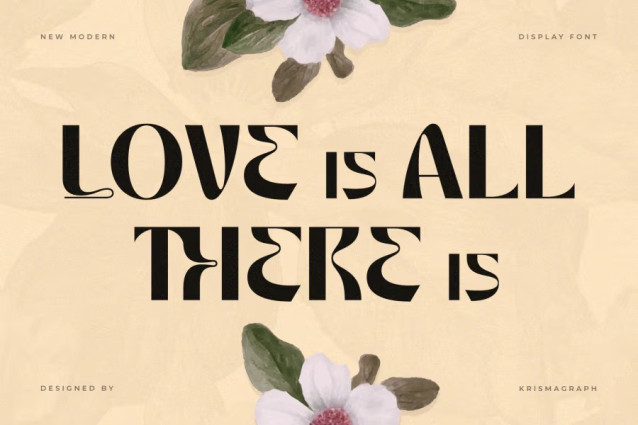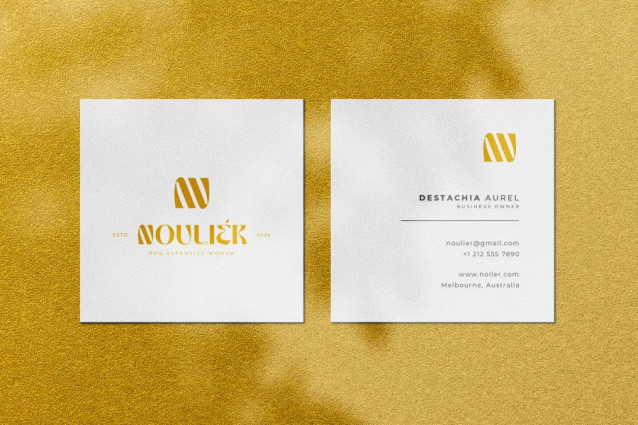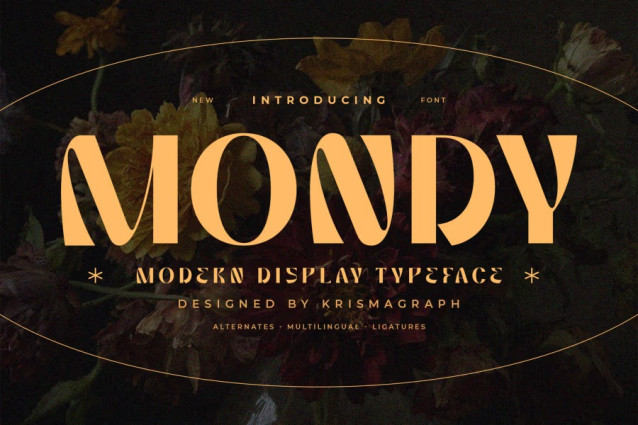
Mondy Font
Mondy Font is a modern display typeface that combines bold geometry, elegant curves, and distinctive letterforms to create a strong and memorable visual presence. Designed with contemporary aesthetics and decorative details, Mondy brings sophistication and personality to any creative project.
Featuring stylish alternates, ligatures, and multilingual support, Mondy offers versatility while maintaining its expressive display character. Its unique shapes and balanced proportions make it perfect for eye-catching headlines and impactful branding applications.
Mondy is ideal for logos, branding systems, posters, editorial designs, packaging, website headers, social media graphics, album artwork, and premium visual compositions. Whether used in modern, artistic, or luxury-inspired projects, Mondy delivers a refined and distinctive typographic experience.